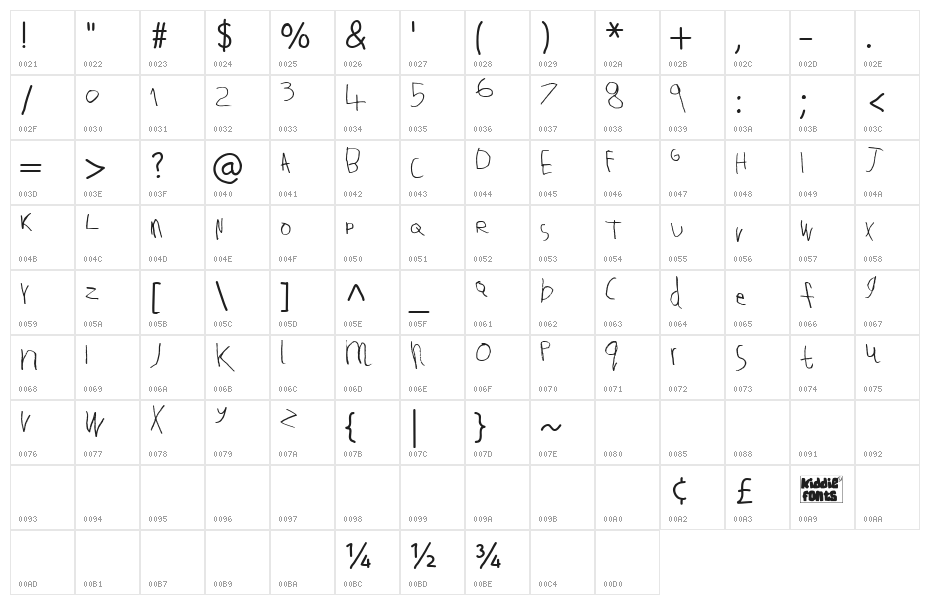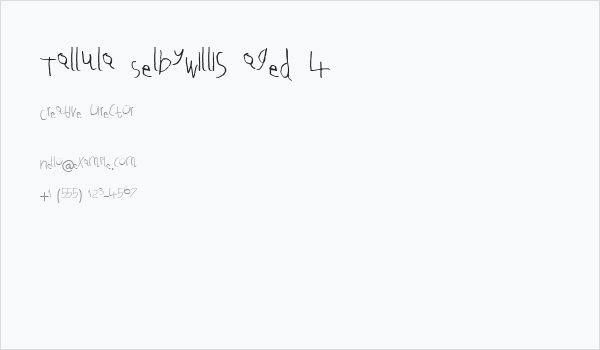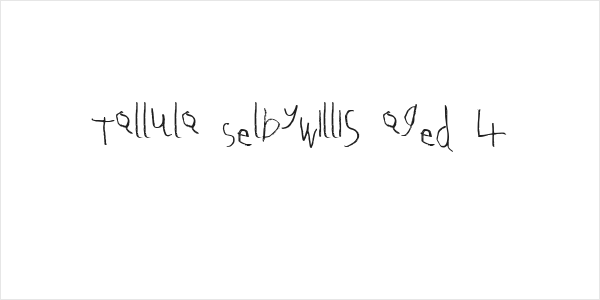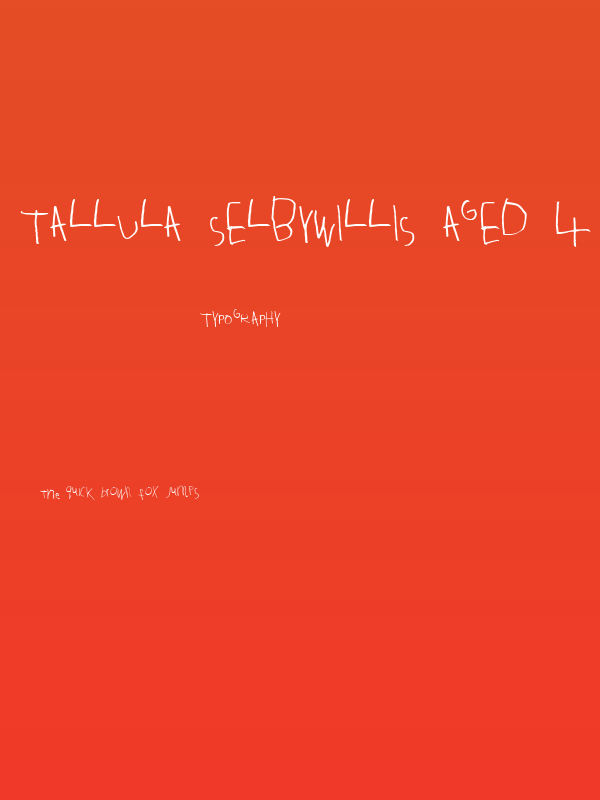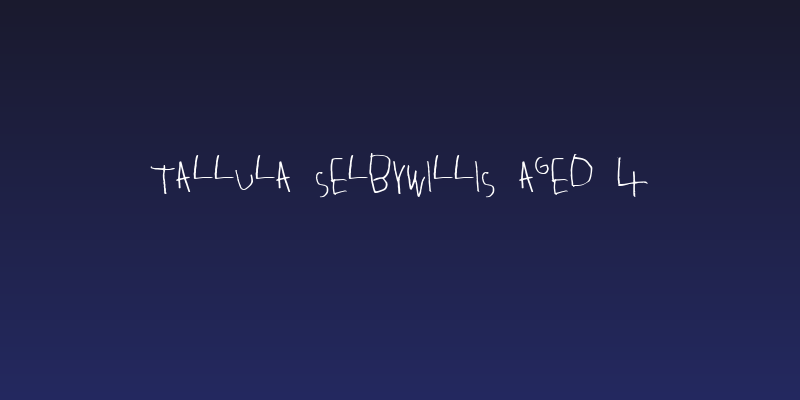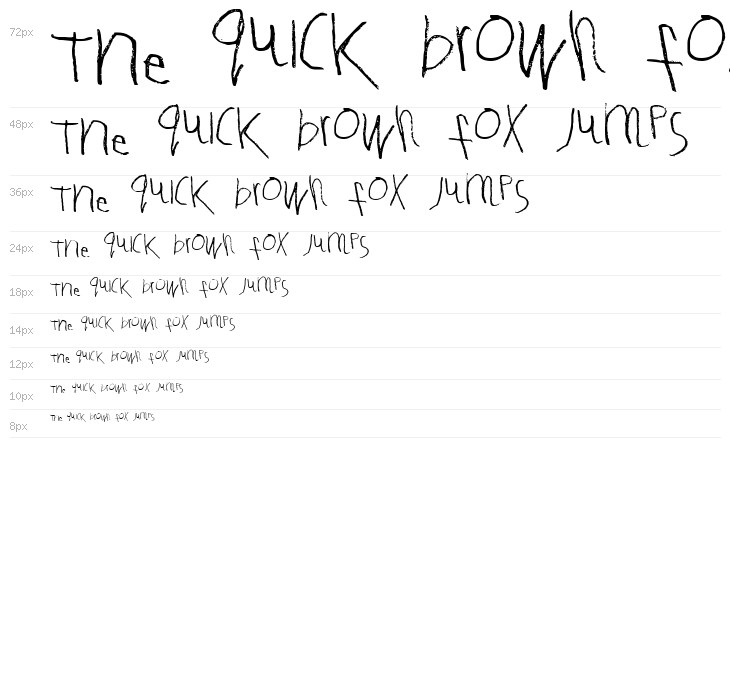
Tallula SelbyWillis aged 4 Font
Tallula SelbyWillis aged 4 Description
This font features a playful and whimsical handwritten style, characterized by its irregular and organic letterforms. Each character appears as if it has been drawn with a marker or crayon, giving it a childlike and artistic feel. The strokes are uneven, adding to the charm and uniqueness of the design. The uppercase and lowercase letters maintain a consistent style, with some letters leaning slightly, enhancing the casual and informal appearance. Numbers and special characters follow the same playful aesthetic, making this font ideal for creative and fun projects.
Overall StylePlayful, Whimsical, Artistic
Use CaseHeadlines, Creative projects, Informal designs
Proposed ProjectsIdeal for children's books, playful branding, greeting cards, and creative projects that require a fun and informal touch.